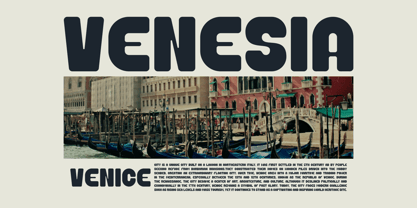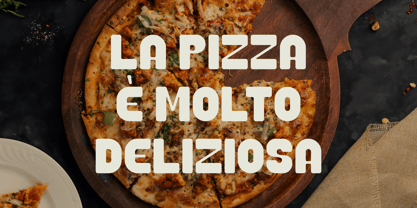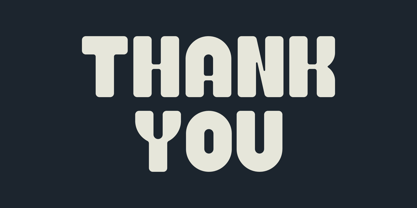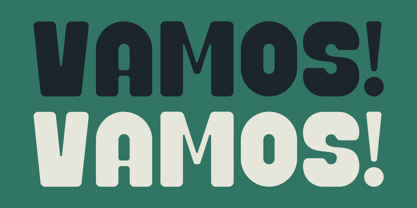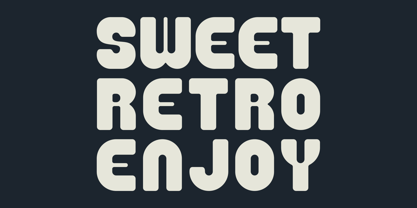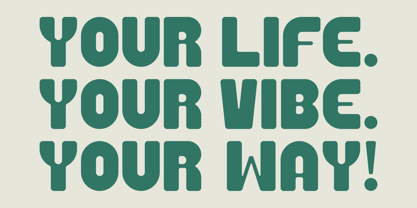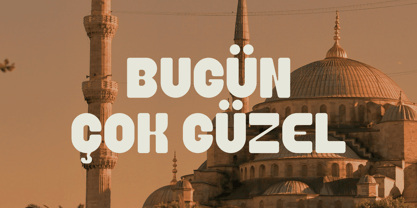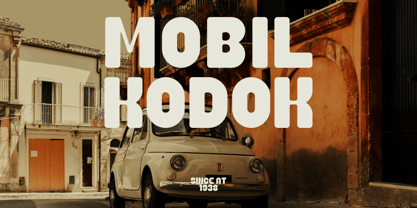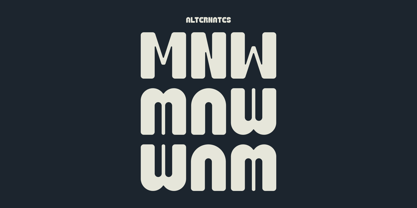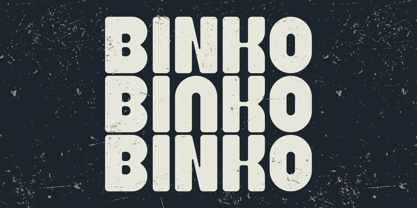
Binko
by Razetype
The Binko Font Family was designed by Ahmad Faizal and published by Razetype. Binko contains 1 styles. More about this family
Binko is a modern display font inspired by retro aesthetics, characterized by its extra-thick weight and rounded rectangular shape. The letters are rendered with a uniform stroke width and gentle curves, creating a soft yet strong visual impact. The font has high readability at large sizes, making it ideal for headlines, posters, logos, and typographic compositions that aim to immediately grab attention. The font conveys a playful and engaging tone through its bubble-like structure, while still maintaining a strong and stable geometric foundation. Some characters feature unique and unexpected details such as the uniquely stylized “R,” “Q,” and “G” that add personality without compromising readability.
Designers: Ahmad Faizal
Current Foundry: Razetype